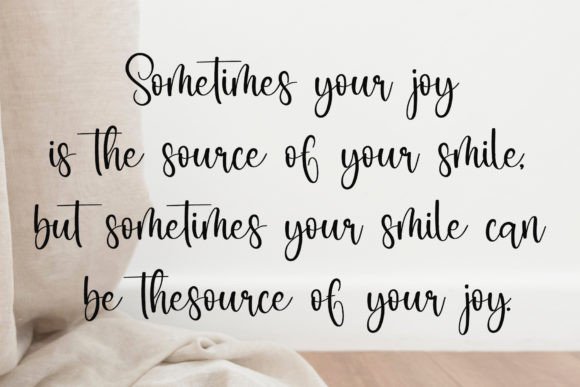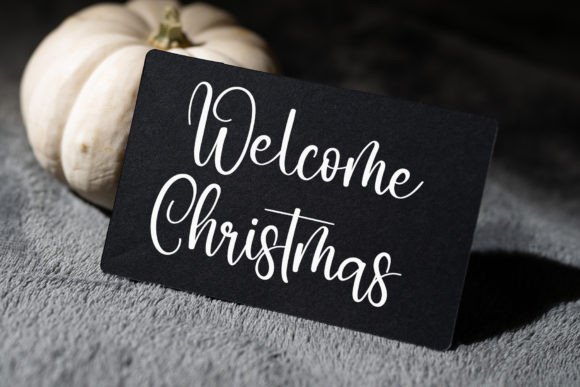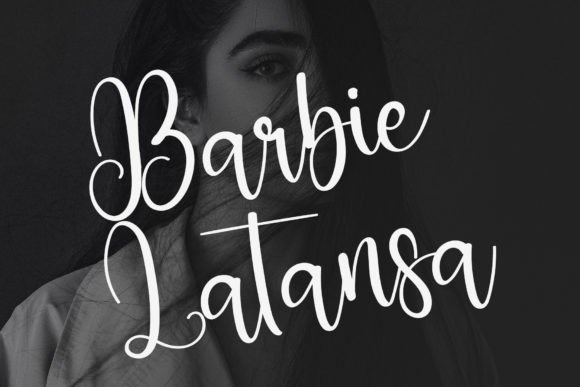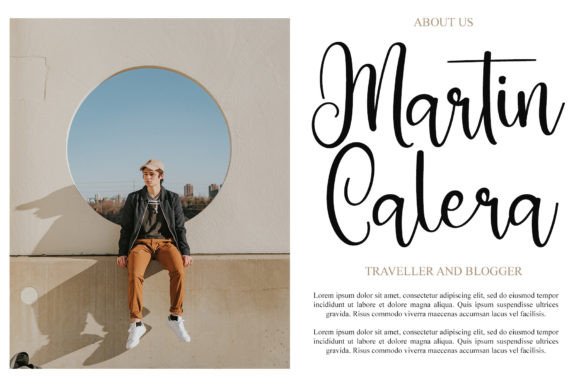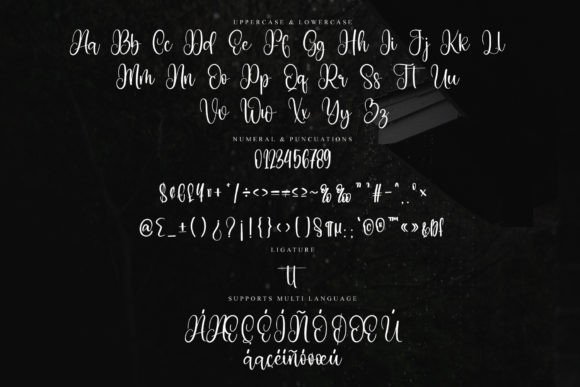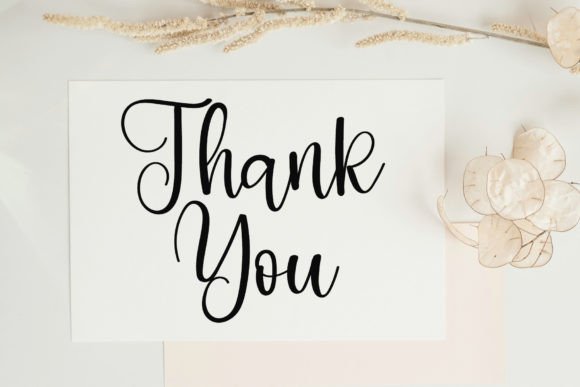
Gifter Font: Elevate Your Designs with Elegance and Sophistication
Are you on the hunt for a font that exudes delicacy, elegance, and a touch of timeless charm? Look no further than the Gifter Font, a beautiful handwritten typeface that is sure to capture your heart. With its distinct and flowing style, Gifter is the perfect addition to your favorite projects, allowing you to create stunning designs that leave a lasting impression.
The Beauty of Gifter Font
Gifter Font boasts an incredibly delicate and elegant appearance, making it an ideal choice for designers and crafters who want to add a touch of sophistication to their work. Its flowing lines and curves create a sense of movement and fluidity, giving your designs a dynamic and eye-catching appeal. Whether you’re working on a logo, branding materials, or digital projects, Gifter Font is sure to elevate your designs to the next level.
What Makes Gifter Font Special?
So, what sets Gifter Font apart from other typefaces? For starters, its unique and timeless style is sure to make your designs stand out from the crowd. Additionally, Gifter Font is PUA encoded, which means you can easily access all of the glyphs and swashes with ease. This feature makes it incredibly convenient to use, allowing you to focus on the creative aspect of your project rather than getting bogged down in technical details.
Gifter Font is an incredibly versatile typeface that can be used for a wide range of projects. Whether you’re a designer working on a client’s branding materials, a crafter creating handmade goods, or a digital artist looking for a unique font to use in your artwork, Gifter Font is the perfect choice. Its elegant and sophisticated style makes it suitable for:
- Digital projects, such as social media graphics and blog posts
- Handmade goods, like wedding invitations and stationery
- Artwork, including illustrations and paintings
Tips for Using Gifter Font
To get the most out of Gifter Font, here are a few tips to keep in mind:
- Use it as a headline font to add a touch of elegance and sophistication to your designs
- Pair it with a simpler font for body text to create a beautiful contrast
- Don’t be afraid to get creative and try out new and innovative uses for Gifter Font
Why Designers and Crafters Love Gifter Font
Designers and crafters alike are sure to fall in love with Gifter Font, and for good reason. Its unique and timeless style makes it a valuable addition to any design toolkit, while its ease of use and PUA encoding make it a joy to work with. Here are just a few reasons why Gifter Font has become a favorite among designers and crafters:
- Its delicate and elegant appearance adds a touch of sophistication to any design
- Its flowing lines and curves create a sense of movement and fluidity
- It’s incredibly versatile and can be used for a wide range of projects
- It’s easy to use and requires no special technical expertise
In conclusion, Gifter Font is a beautiful and elegant handwritten typeface that is sure to elevate your designs to the next level. With its unique and timeless style, PUA encoding, and ease of use, it’s the perfect addition to your design toolkit. Whether you’re a designer, crafter, or digital artist, Gifter Font is a must-have for anyone looking to add a touch of sophistication and elegance to their work.